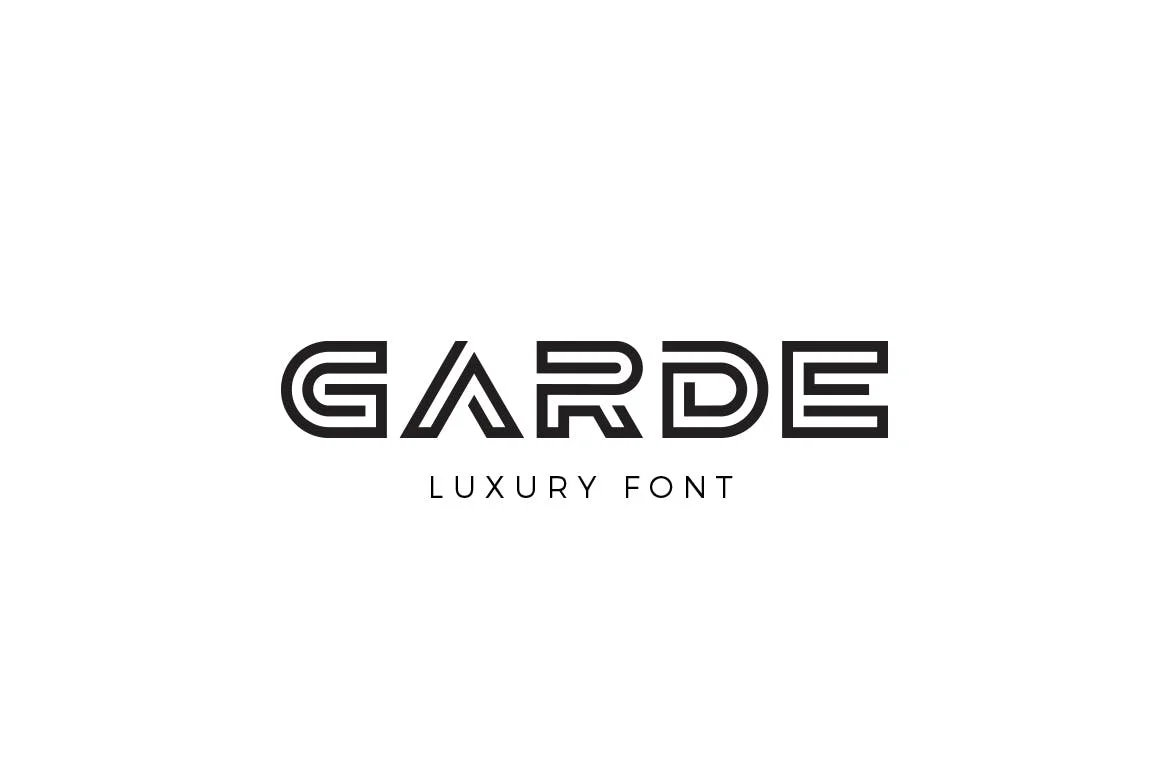
Garde Font is stylish creative font useful for creating titles, monograms, logos in such areas as Beauty, Fashion, Jewelry, Luxury, Corporate business.